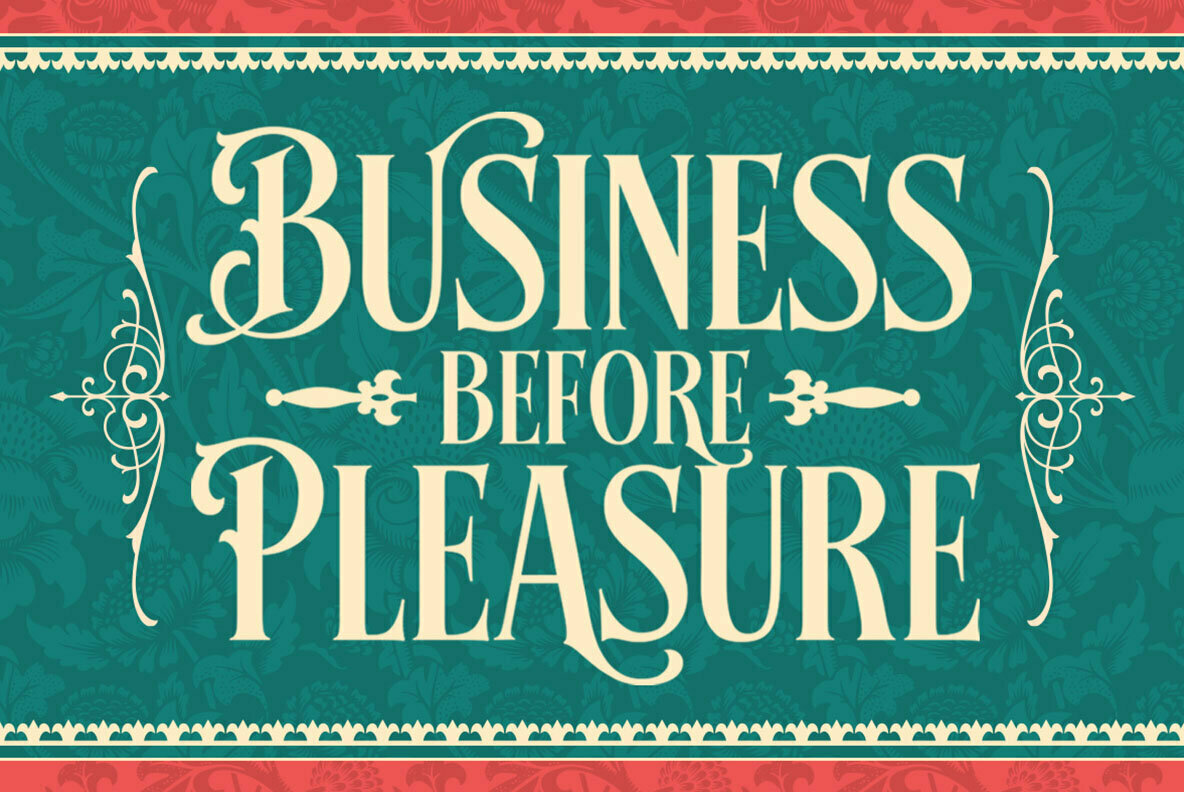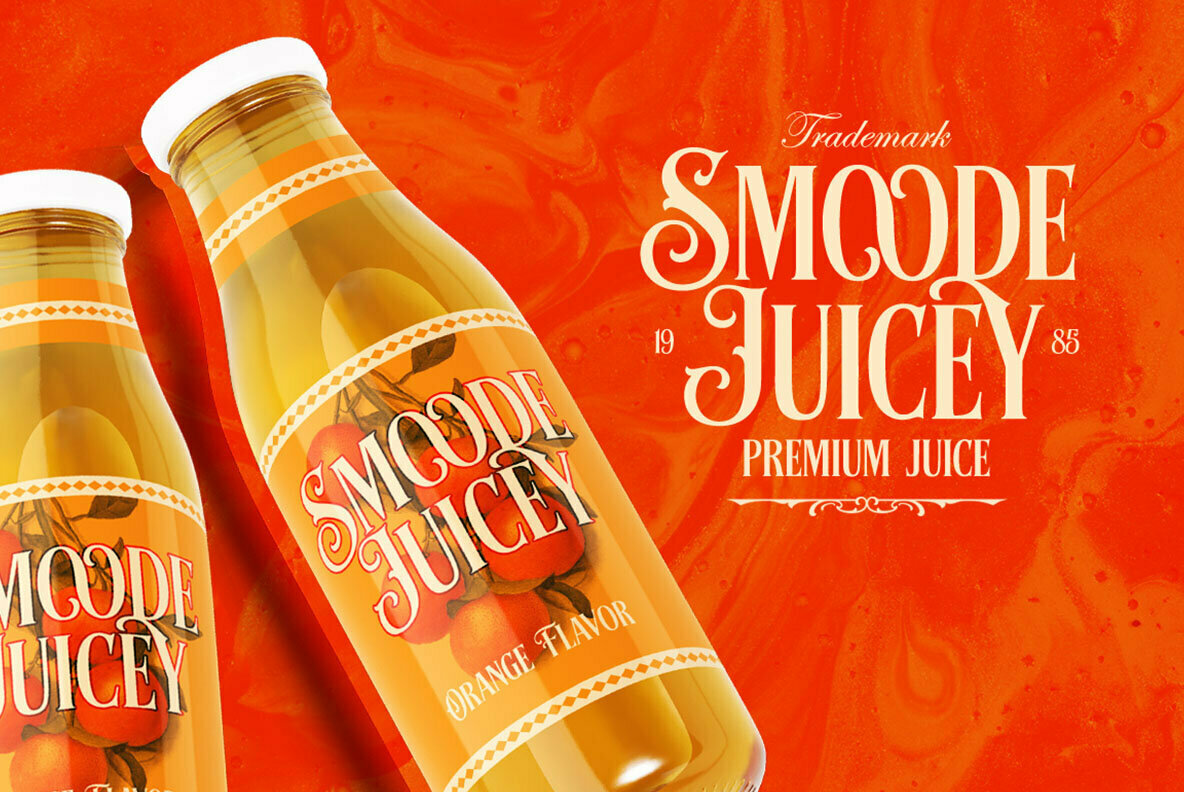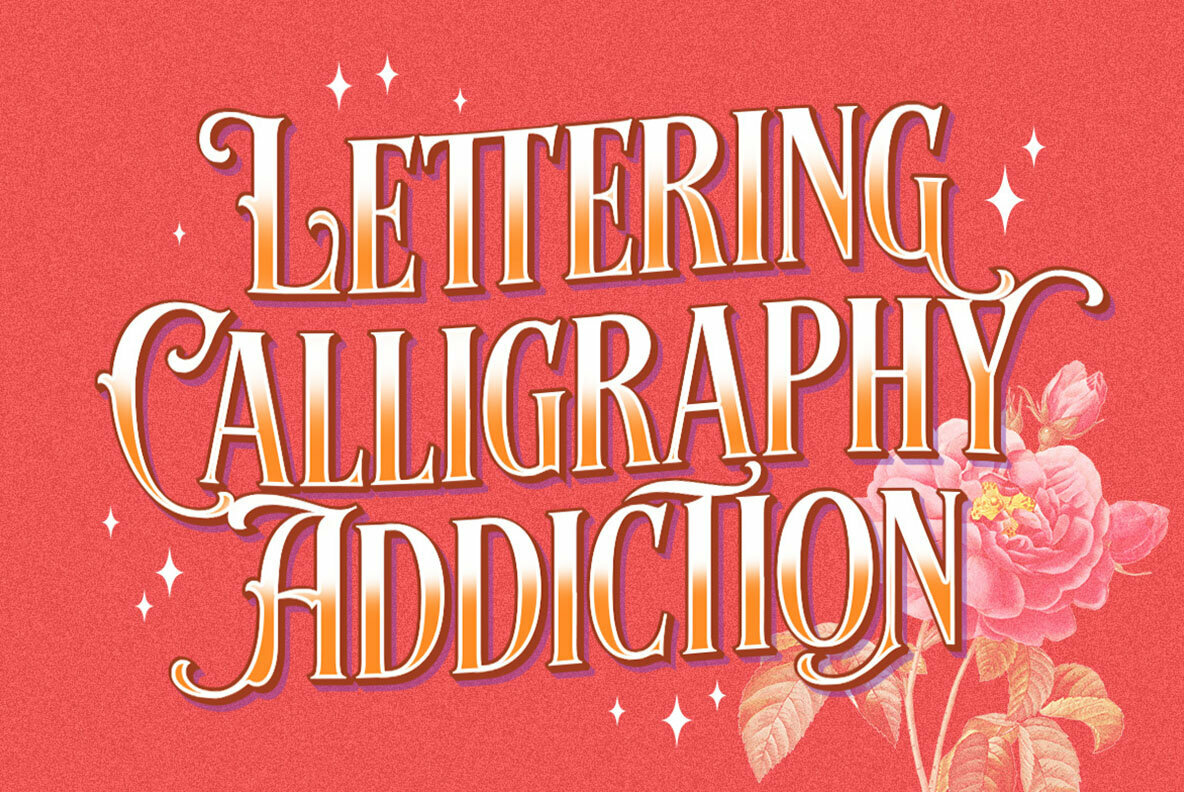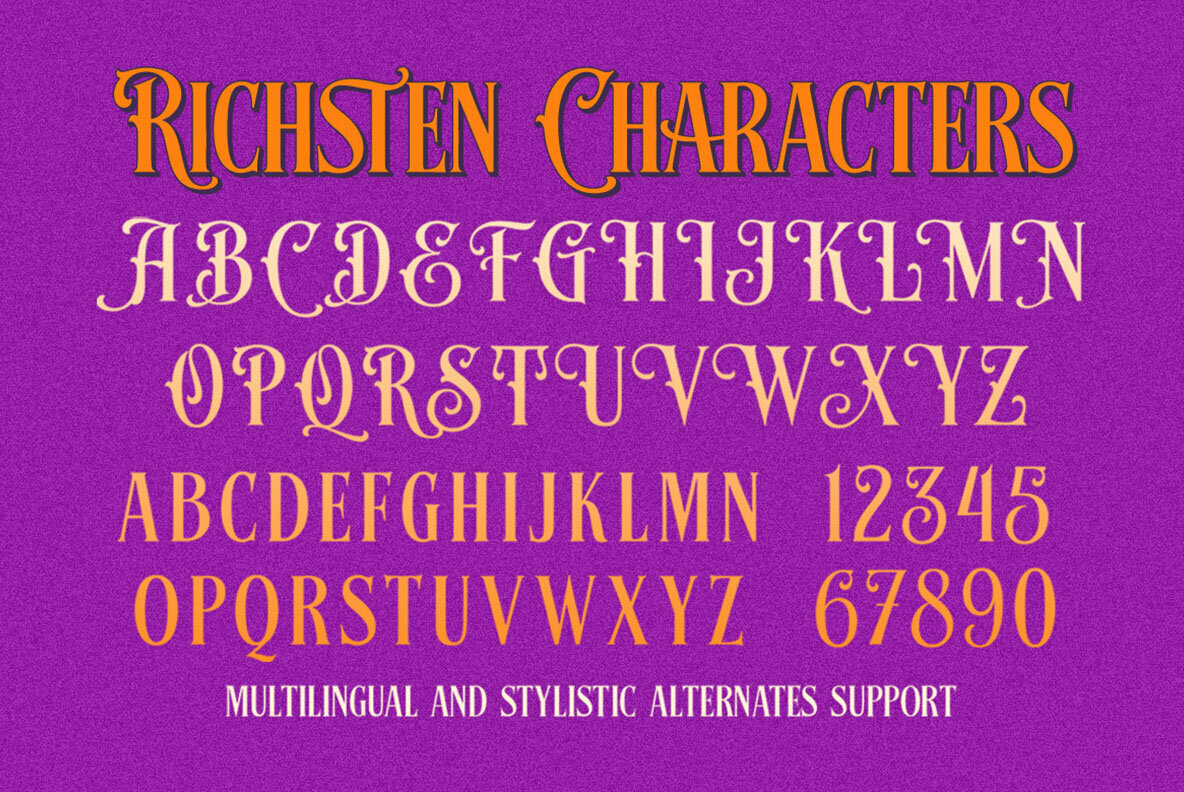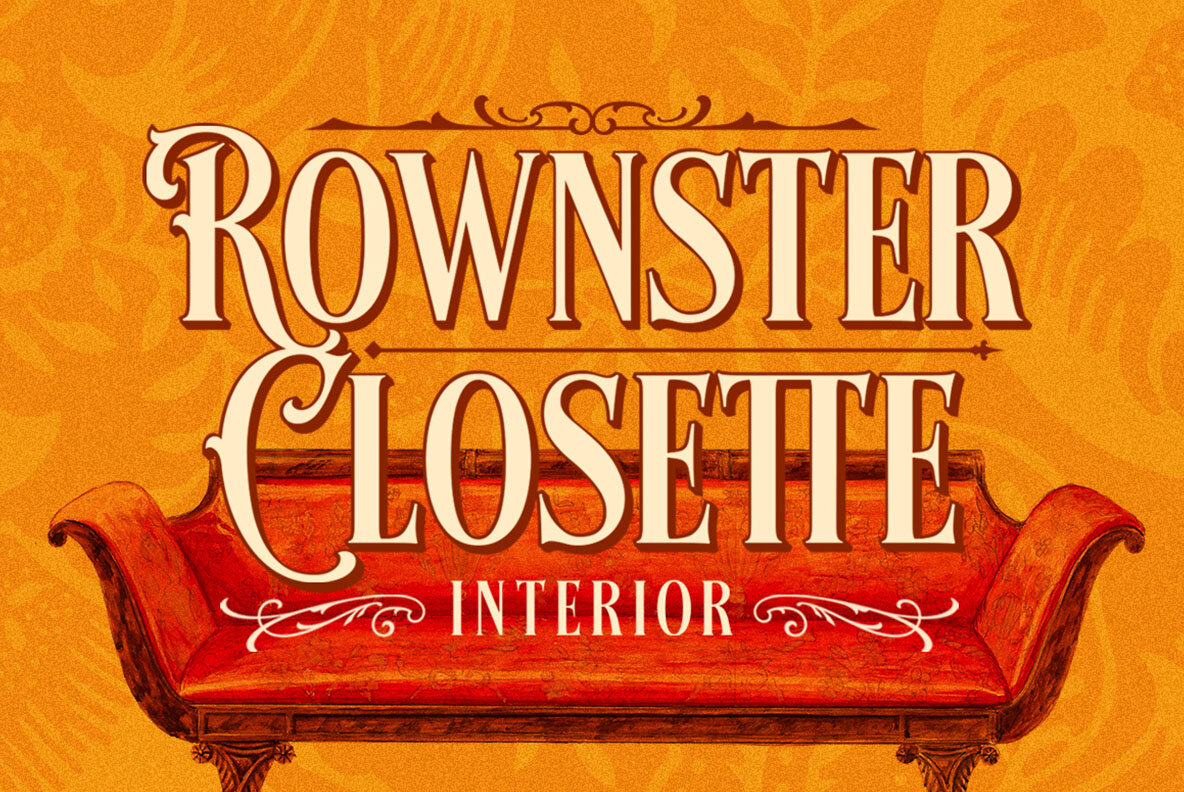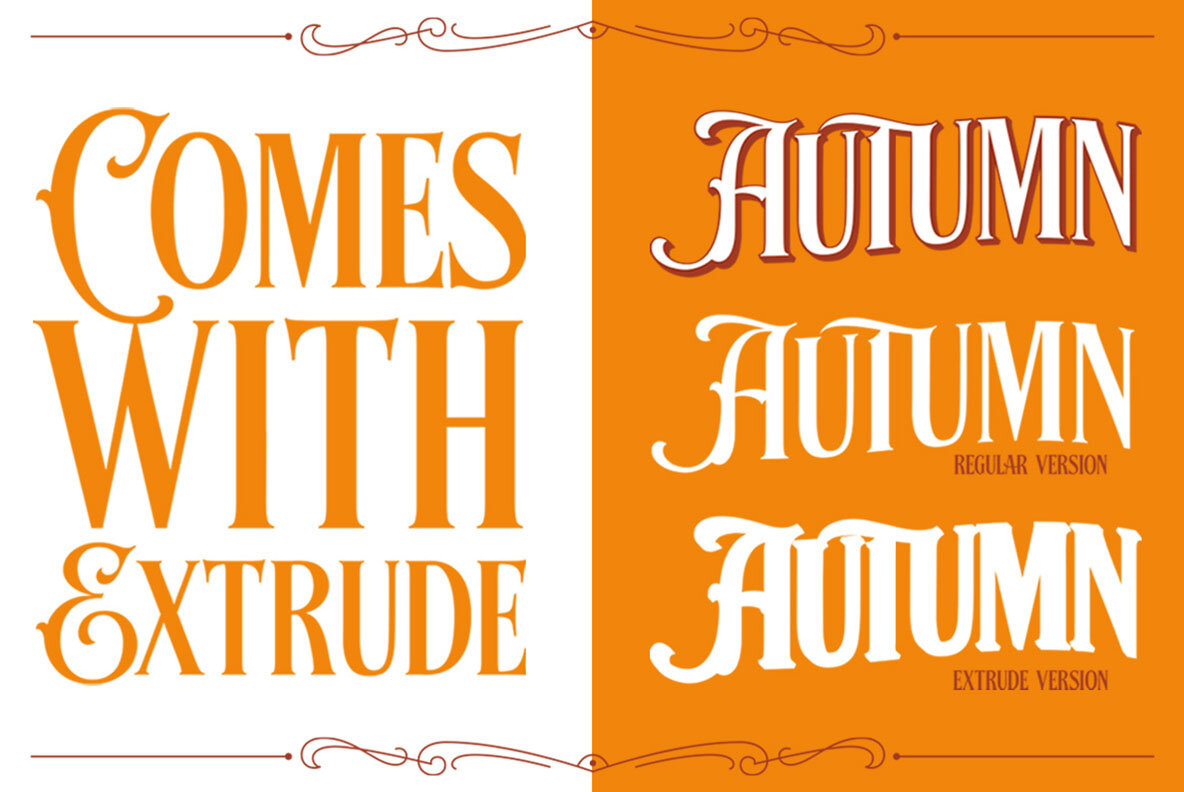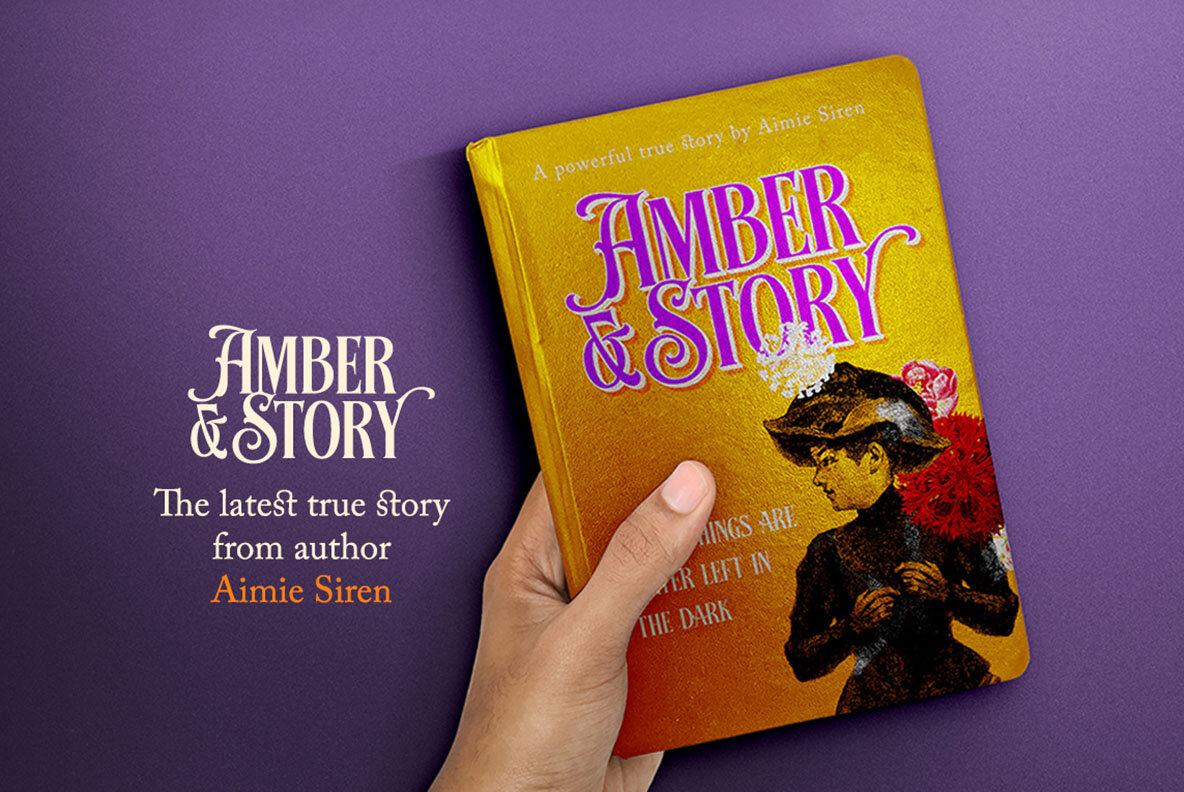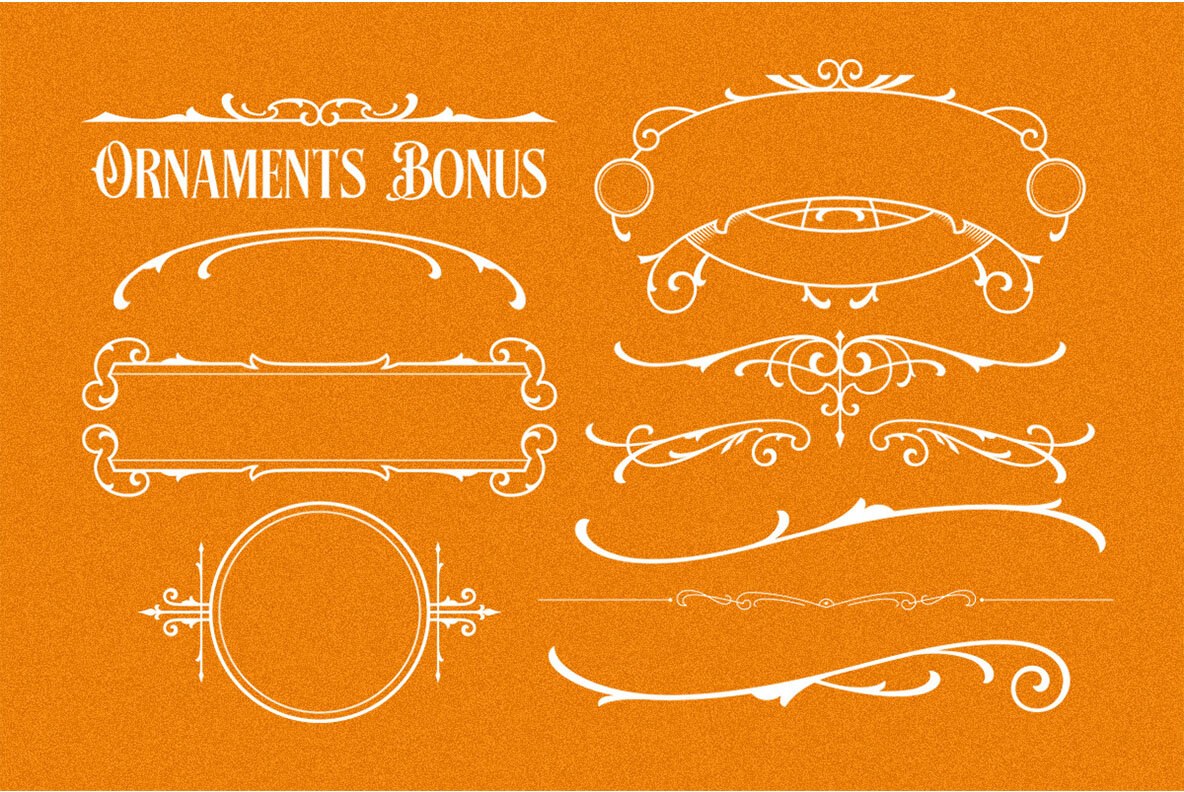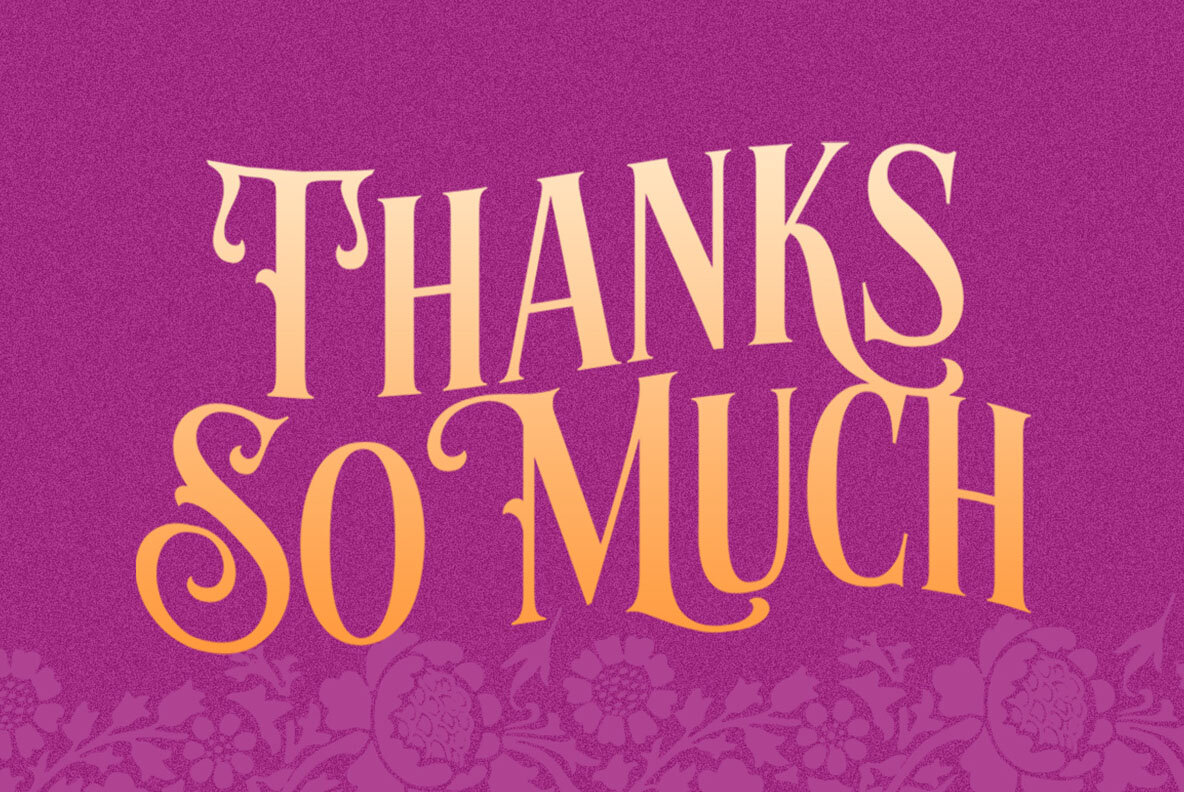
Richsten Font
Richsten by Letterhend Studio draws from the elegance of vintage signage, merging a Victorian spirit with robust modernity. Its bold presence makes it perfect for headlines, logos, and branding that require a touch of the old-world charm. Enriched with bonus ornaments, Richsten pairs beautifully with decorative accents, enhancing projects like apparel, invitations, and packaging, all designed with a timeless, vintage theme in mind. Features: For the full experience, we suggest utilizing software such as Adobe applications or Corel Draw, which allows you to explore all OpenType features and variations this typeface offers. For guidance on accessing these features, visit Letterhend's tutorial on their website.Richsten: Vintage Inspiration with a Bold Flair